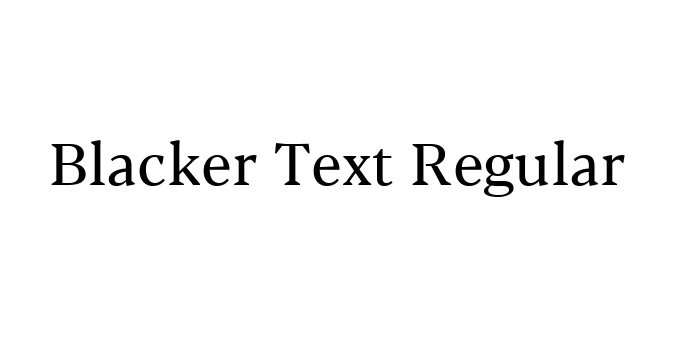
Blacker Text Regular
Designed by Cosimo Lorenzo Pancini and Andrea Tartarelli
Blacker Text Regular is a contemporary wedge serif typeface family designed as an homage to the "evil serif" genre of the 1970s. Developed by Cosimo Lorenzo Pancini and Andrea Tartarelli for the Zetafonts foundry, this specific variant is part of a larger superfamily. Unlike its display version, the Text sub-family is meticulously crafted with adjusted proportions, lower contrast, and wider spacing to ensure maximum legibility when used for body copy and smaller point sizes.
The aesthetic of Blacker combines sharp, aggressive triangular serifs with elegant curves, creating a sophisticated yet slightly rebellious personality. It bridges the gap between classic editorial typography and modern digital demands. This font has become a favorite among designers for its ability to convey authority and style simultaneously, making it a powerhouse for high-end publishing and complex typographic systems.
Blacker Text Regular Best Uses
Excellent for magazine layouts, book interiors, and long-form articles.
Provides a premium and authoritative feel for fashion and luxury brand identities.
Optimized for readability in digital environments for blogs and corporate sites.